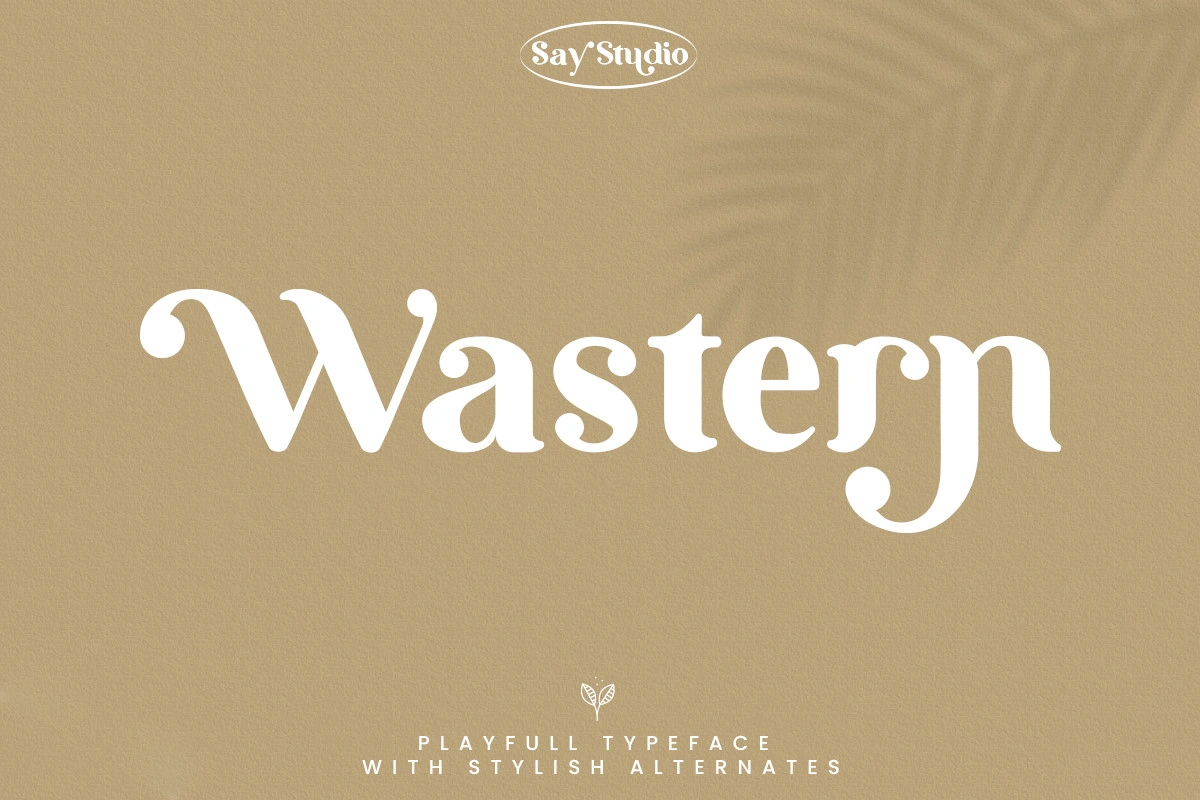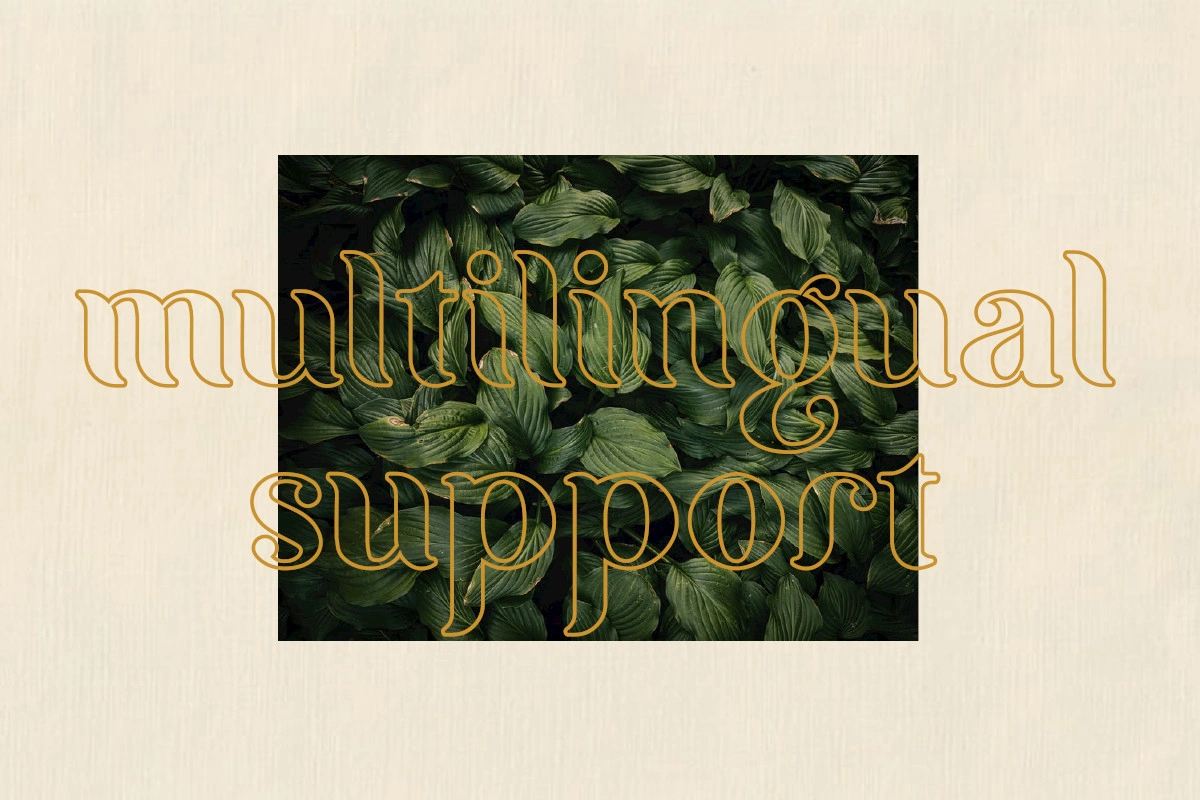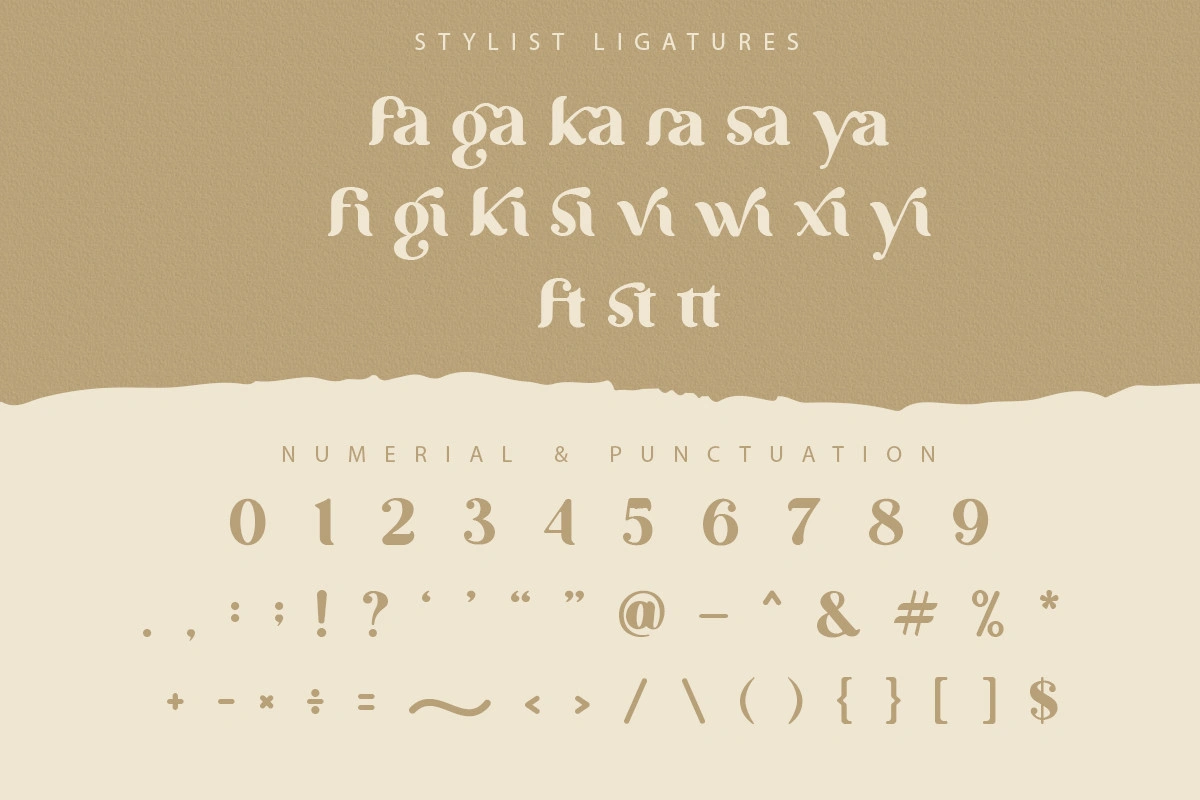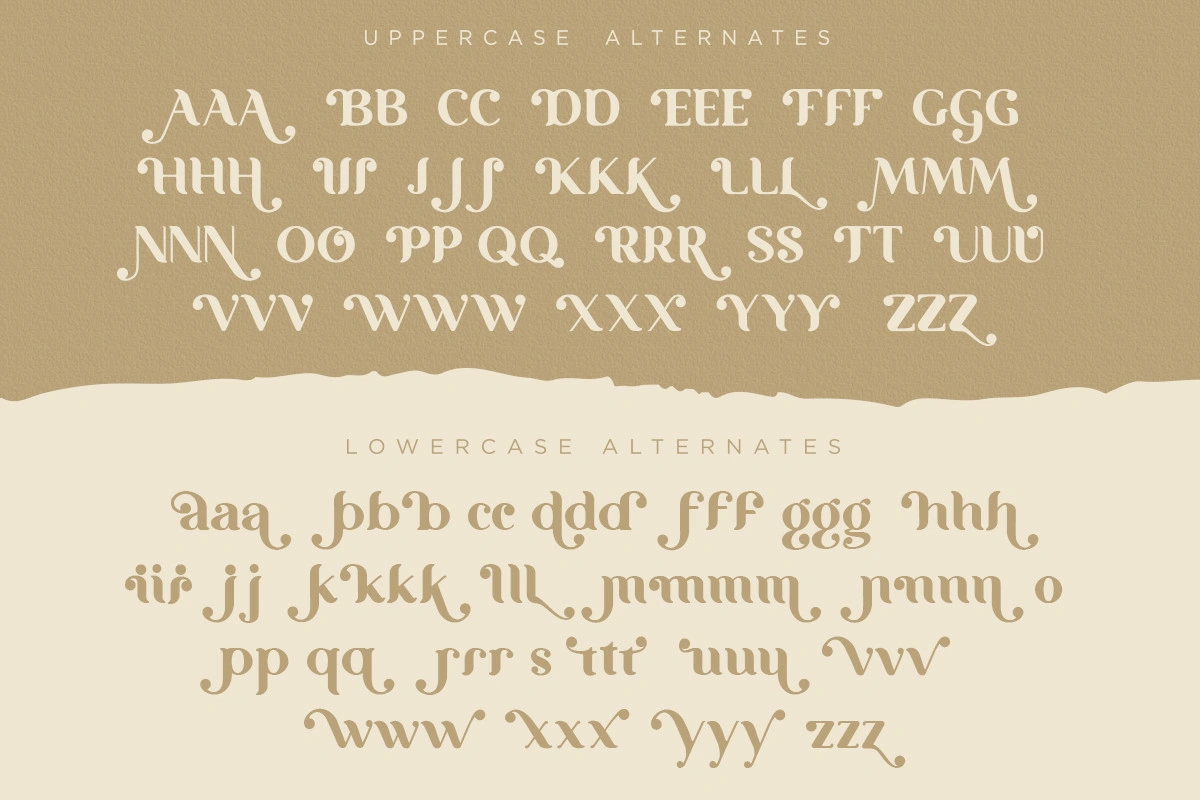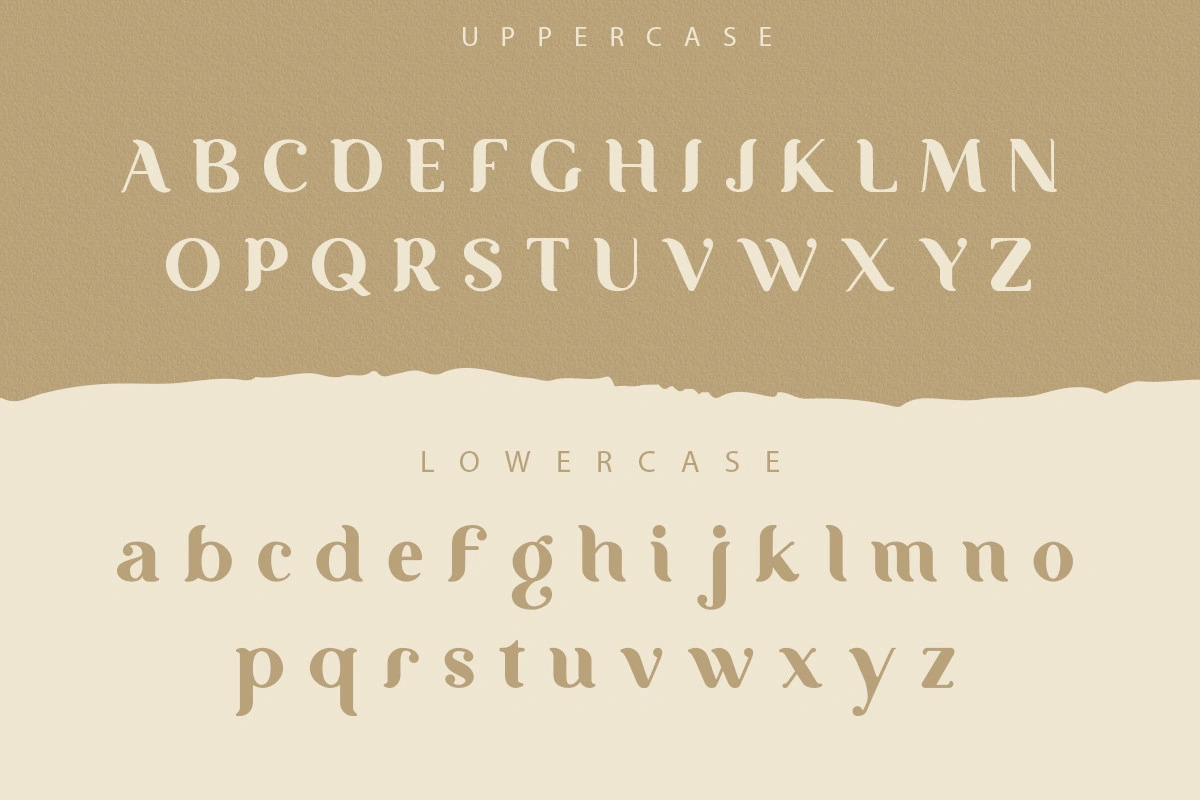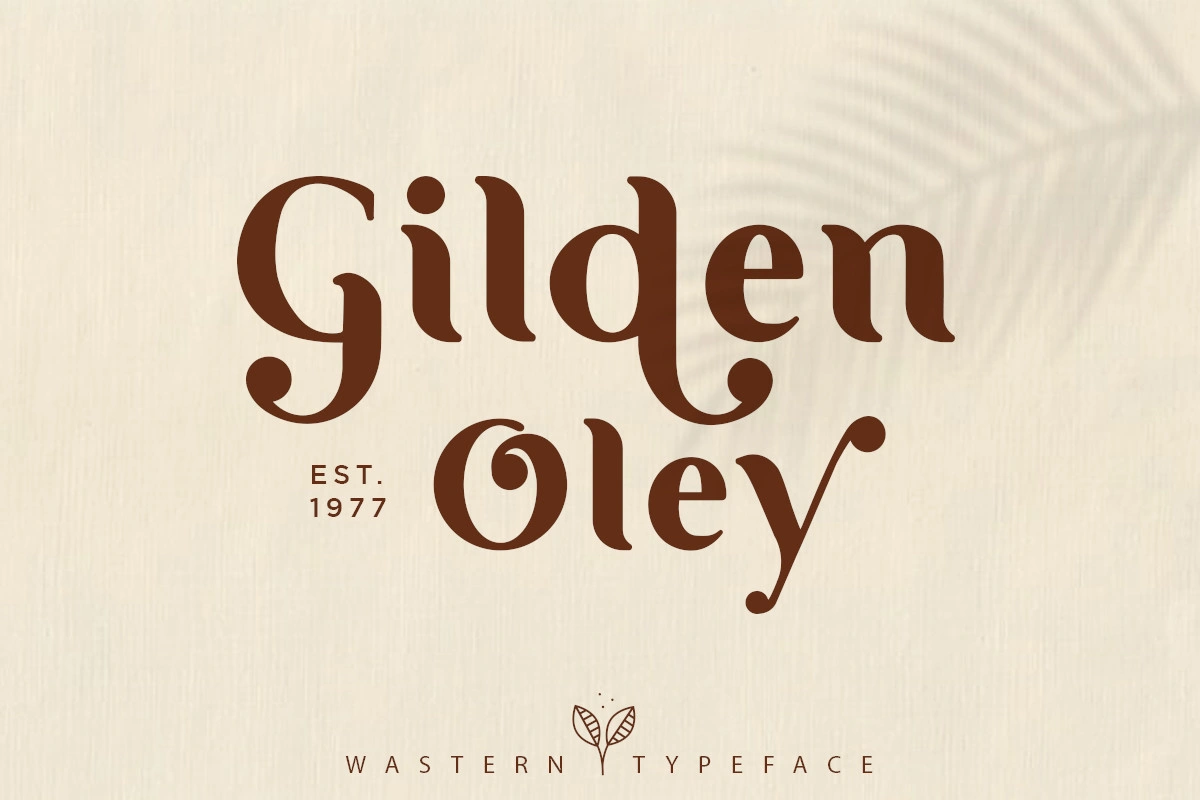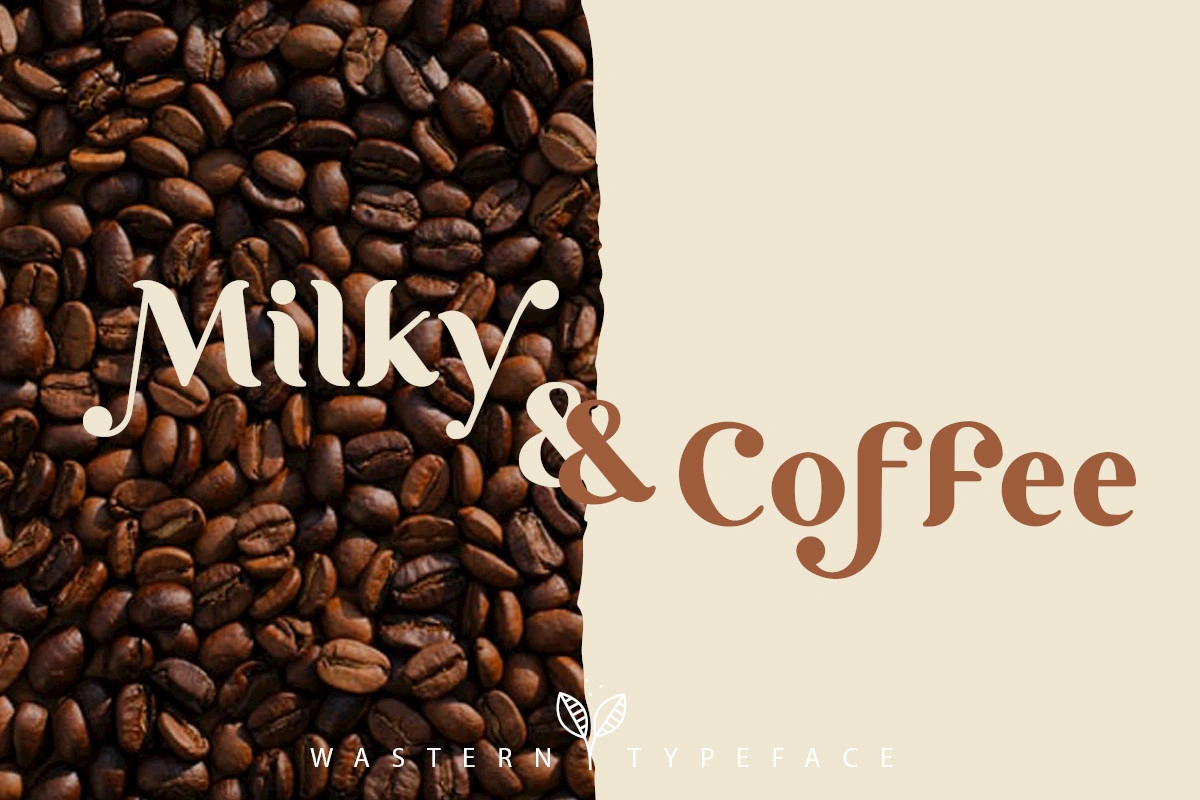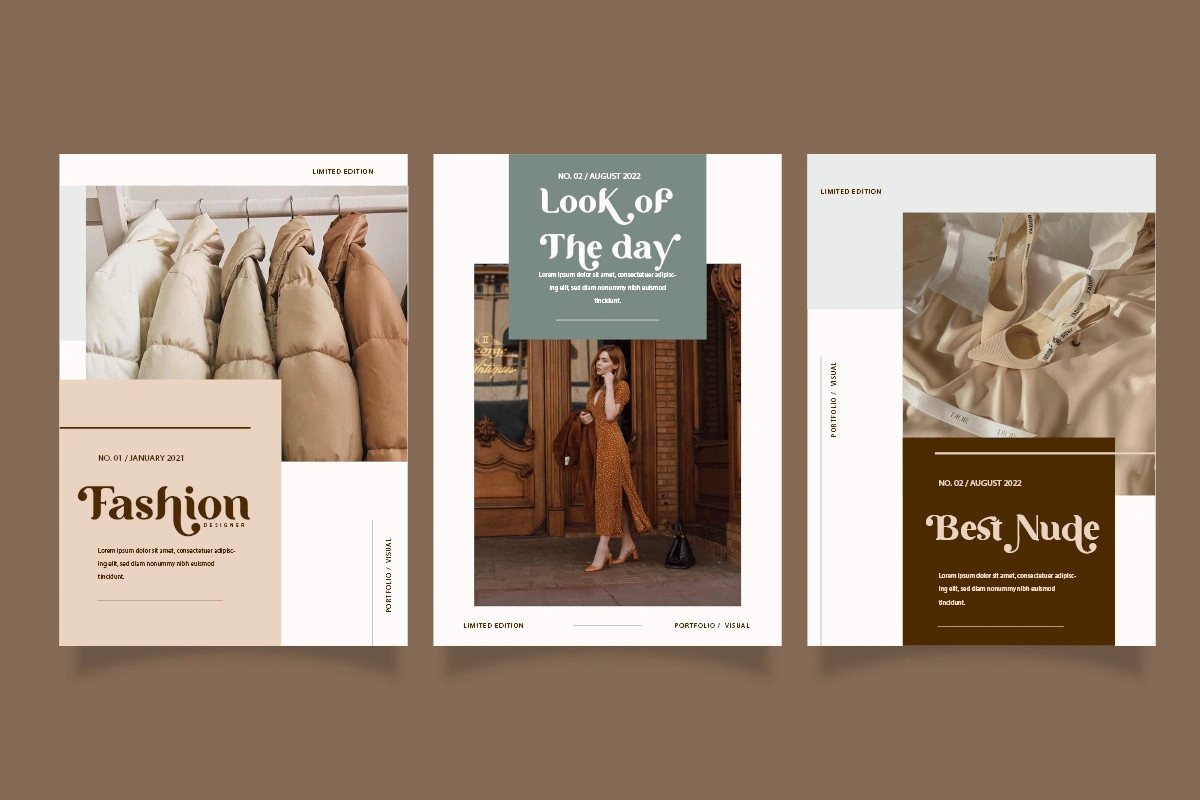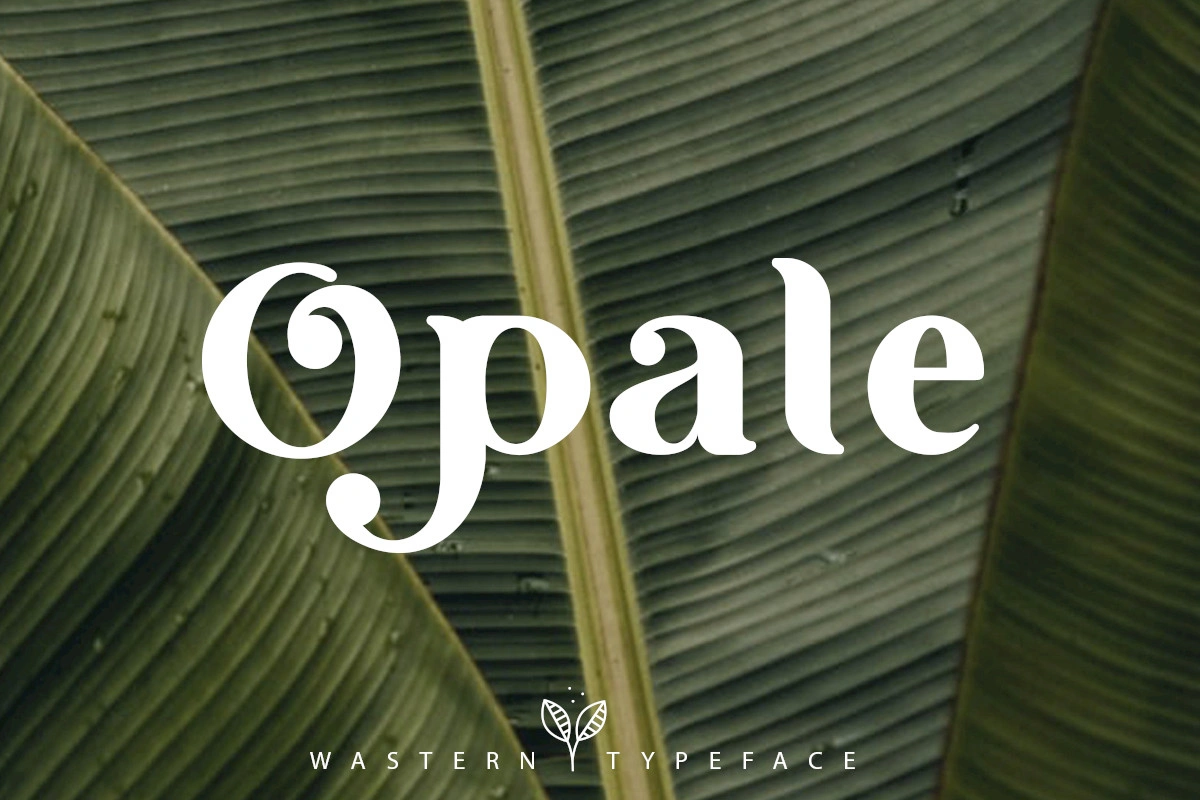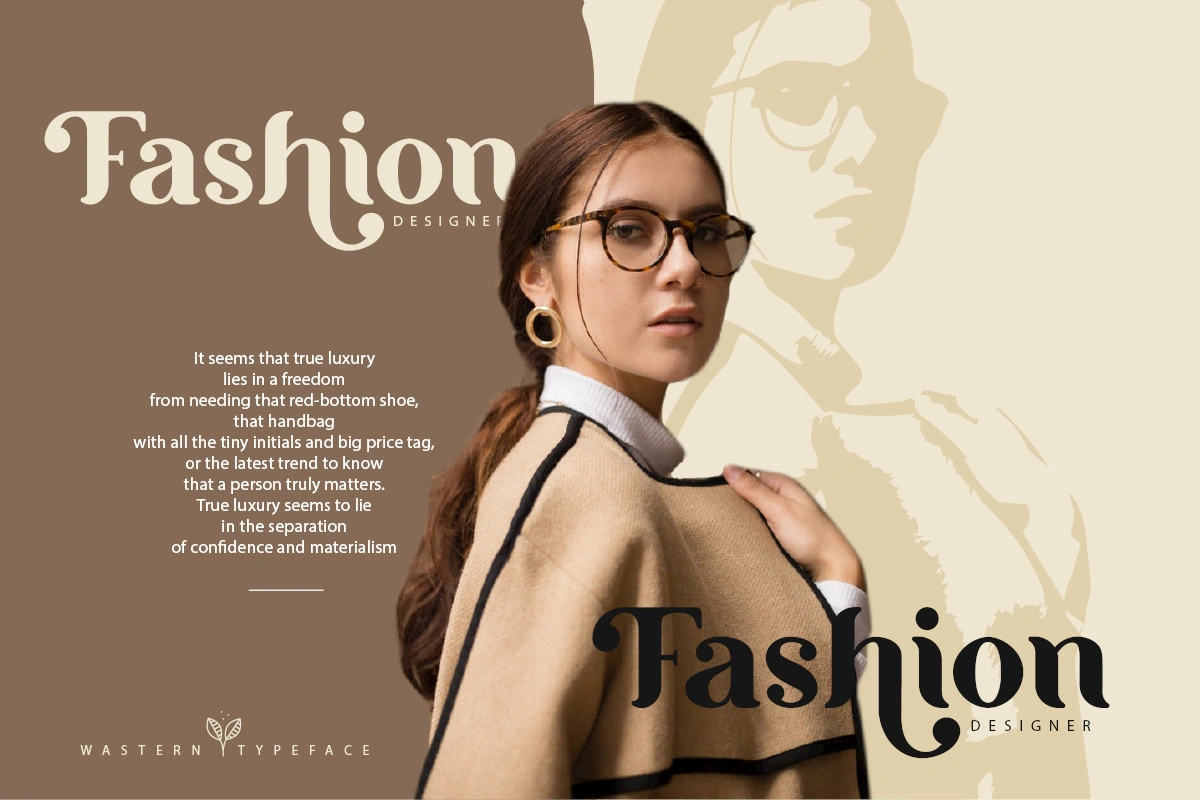
Wastern – Display Font
Introducing Wastern – A brand new bold display typeface with both modern and vintage curves.
Modern or Vintage. If you are going Vintage Retro : Access your OpenType features to access the large selection of alternate letters and ligatures, select the letters you like from the large variety to get the vintage look you are after. Vary between a light and heavy vintage look based on how many letters you alter. Due to alternates , Wastern is a very versatile font, covering a wide range project types, from bold magazine imagery , to wedding invitations, to branding, poster design and so much more.
- Unique letterforms